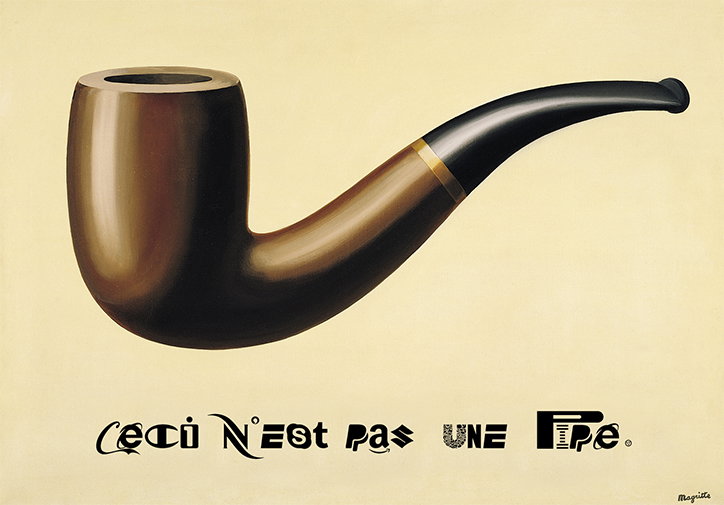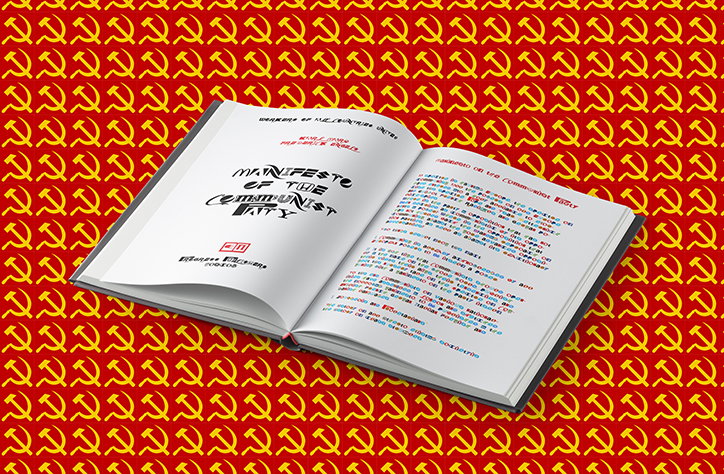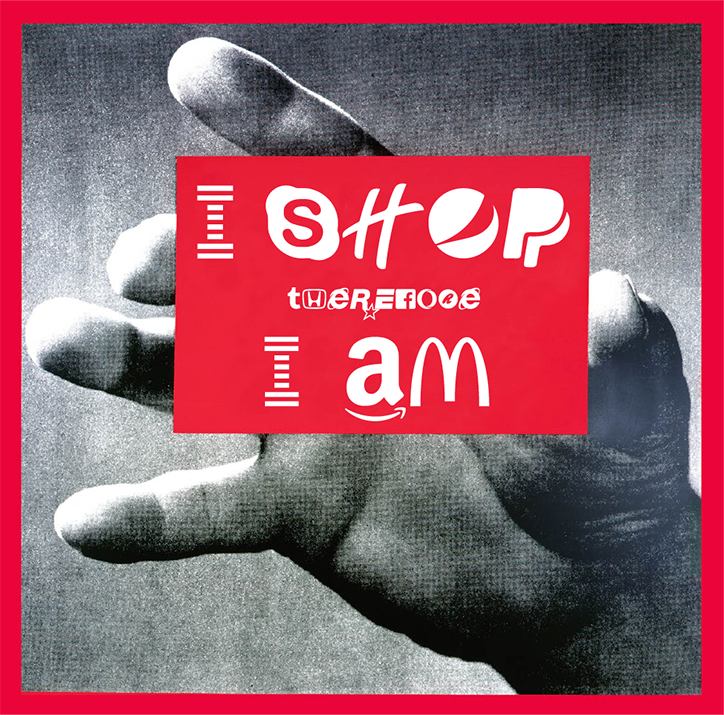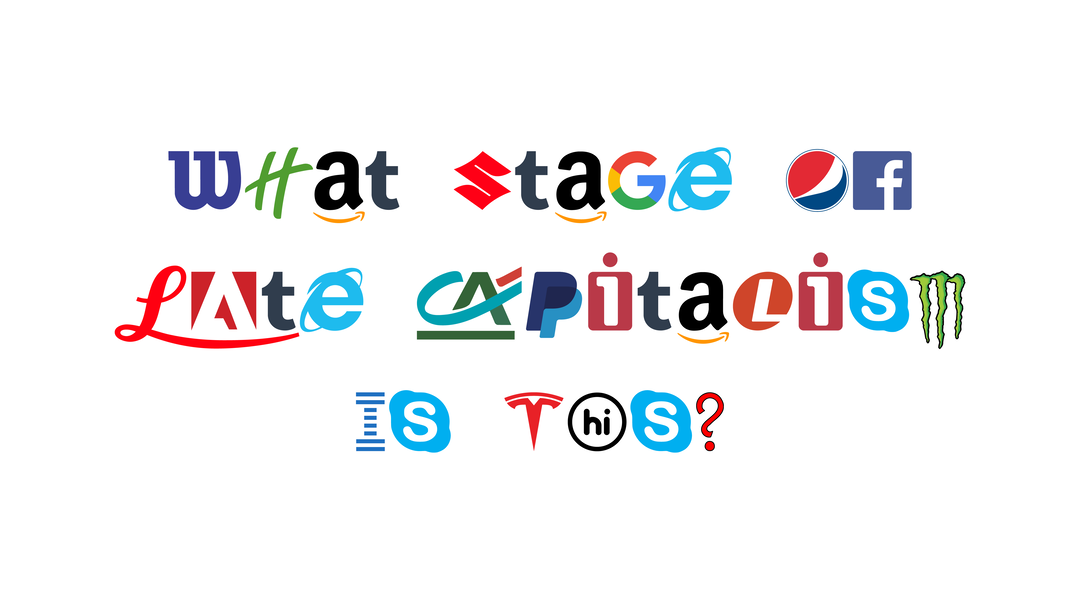
New typeface Brand New Roman makes the internet feel like a shopping centre
Hello Velocity: Brand New Roman
Language is quite useful, really. Sometimes, though, the bog-standard alphanumeric characters we’ve been putzing about with ever since the Romans ambled across Europe and decided that the Kentish coast was the place for them looks a little, well, boring.
At least that’s what American digital studio Hello Velocity seem to think. So they slaved away and came up with Brand New Roman, a cheeky typeface that plays fast and loose with corporate identity.
The studio, based between New York and Boston, and co-founded by former college friends Kevin Wiesner, Lukas Bentel and JS Tan, describe themselves as being committed to crafting “thought-provoking internet experiences.” In this instance, they’re asking us to consider the relationship between language and branding. Think Wingdings for late-capitalism.
Comprised of 76 corporate logos — which include the likes of Amazon, Beats, and Champion — the typeface possibly won’t last too long. The Hello Velocity guys have also coded plugins for Chrome and Firefox which instantly turn the user’s internet experience into an all Brand New Roman experience. It’ll be a bit like being trapped in Westfield. But at your computer.
Hello Velocity: Brand New Roman